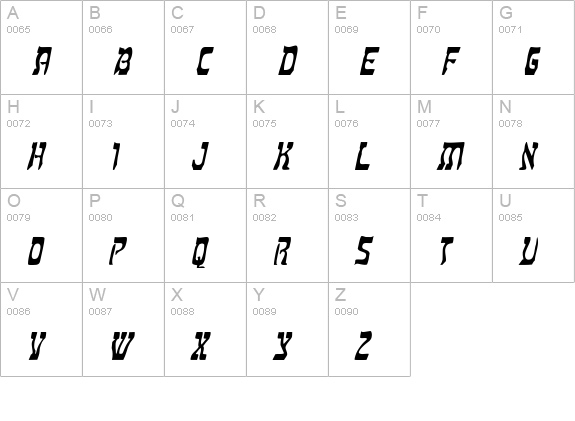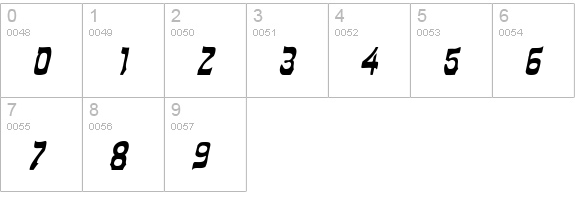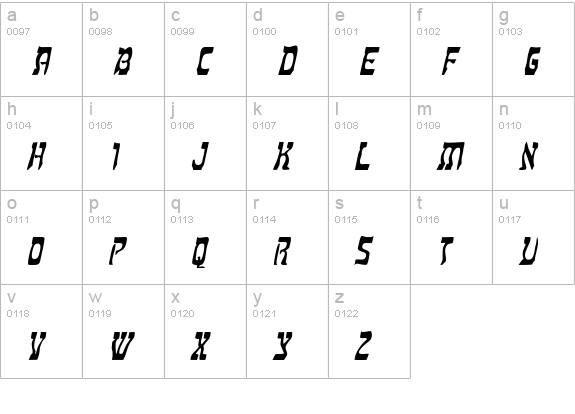
Kosher Italic is a distinctive, italic variant in the Kosher typeface family \xE2\x80\x94 well suited to design and typography projects.
Kosher Italic font is a stylish and elegant typeface that adds a touch of sophistication to any design project. Its sleek and modern look makes it perfect for a wide range of applications, from branding to editorial design. The italic style of the font provides a sense of movement and fluidity, making it a versatile choice for both digital and print projects. What sets Kosher Italic font apart is that it is not only visually appealing but also free to use. This means that you can elevate your designs without breaking the bank. You can easily download Kosher Italic font for free at FontsMarket.com, where you will find a wide selection of high-quality fonts to enhance your creative projects. Don't miss out on the opportunity to elevate your design work with this elegant and sophisticated typeface.